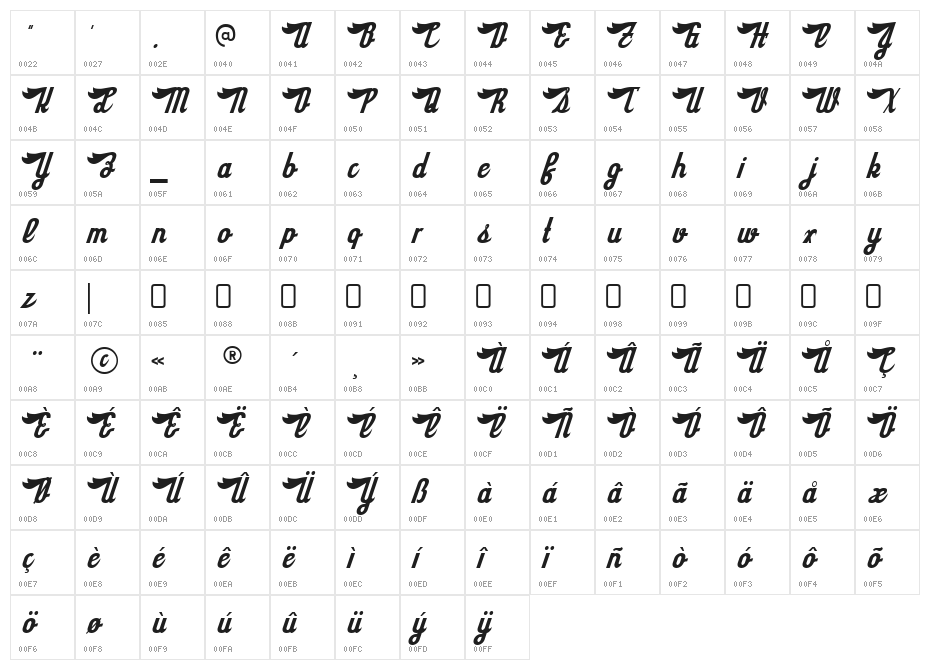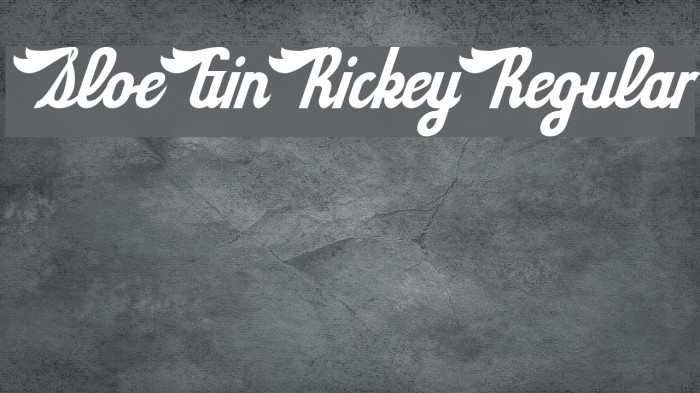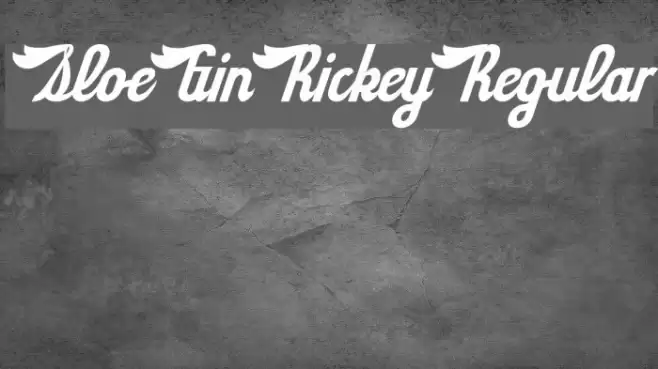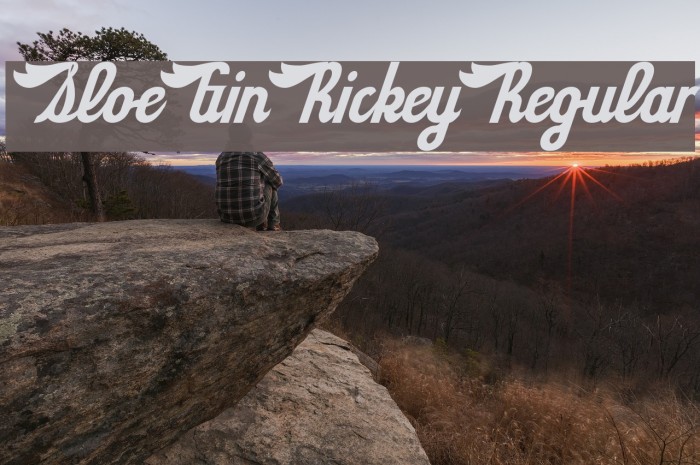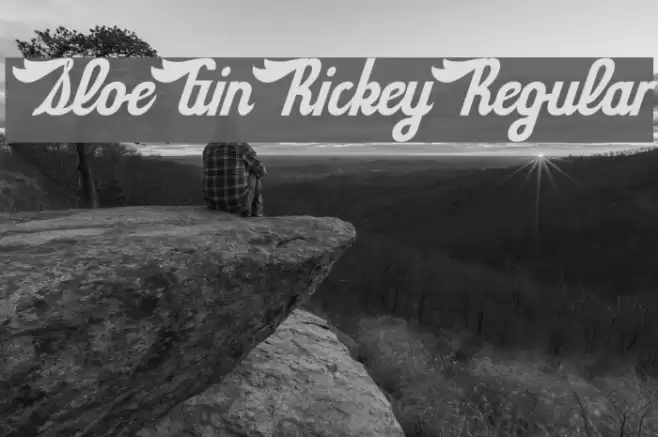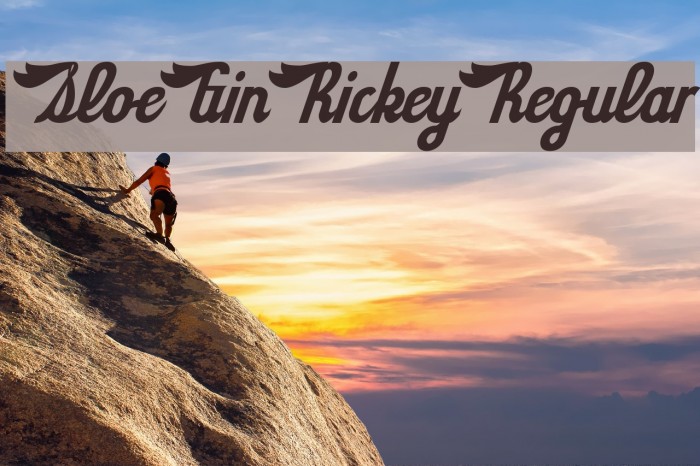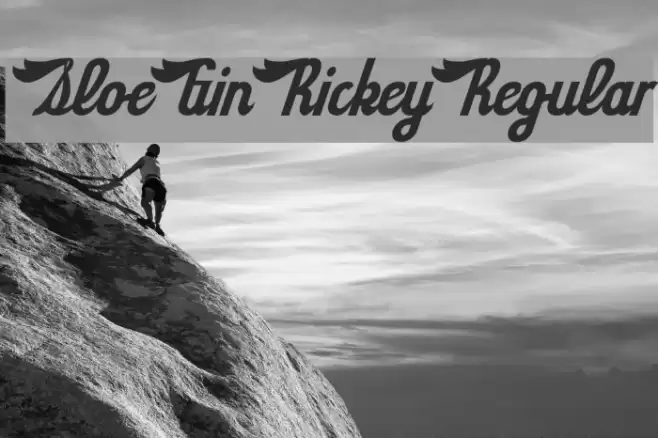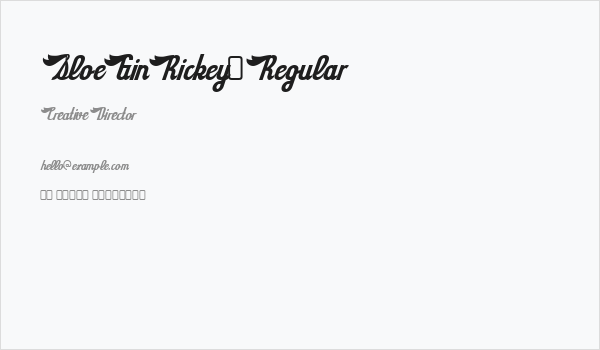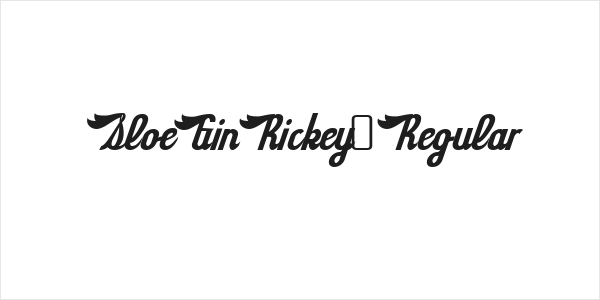
SloeGinRickey-Regular Font
SloeGinRickey-Regular Description
This font features a bold, cursive style with a distinctive flair. The uppercase letters are characterized by sweeping, exaggerated serifs that add a sense of movement and elegance. The lowercase letters maintain a consistent flow, with smooth curves and a slightly condensed form that enhances readability. The overall design is both playful and sophisticated, making it suitable for a variety of creative applications. The font's bold weight and medium contrast in stroke thickness contribute to its strong visual impact, while the character spacing is relatively tight, ensuring a cohesive appearance.
| Proposed Projects | Ideal for branding, invitations, greeting cards, and creative headlines. |